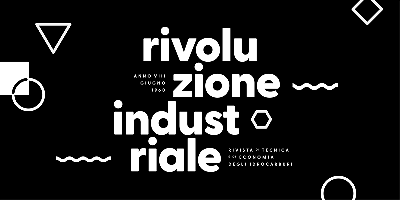
Chorine Font is ideal for clean design projects including swimming pool companies, water treatment facilities, pool maintenance services, aquatic center branding, swimming instructor materials, pool supply stores, water safety campaigns, and crystal-clear marketing initiatives. This pristine typeface works perfectly for pool construction businesses, swimming lesson programs, water purification systems, aquatic therapy centers, and projects that celebrate water clarity and swimming excellence.
What makes Chorine Font exciting is its crisp aquatic character that perfectly captures the essence of crystal-clear water and swimming pool sophistication. The font features clean, flowing letterforms with refreshing clarity that reflects the purity and inviting nature of well-maintained swimming pools. Its transparent design elements embody the spirit of aquatic recreation and water safety, making it perfect for projects that need to convey cleanliness, refreshment, and professional pool management. The carefully crafted fluid lines create an atmosphere of aquatic serenity and swimming confidence.
Chorine Font comes in multiple family variations including crystal, clear, flowing, and aquatic styles. Each weight maintains the distinctive water-inspired character while offering different levels of aquatic intensity and swimming presence. The font family includes pool alternates, water ligatures, and swimming variations that provide designers with comprehensive options for creating truly refreshing and aquatically authentic typographic compositions that celebrate swimming culture.
Whether you're designing aquatic branding, creating pool marketing materials, or developing swimming promotional graphics, Chorine Font Free Download provides the perfect typographic foundation for projects that celebrate water excellence and aquatic lifestyle. This exceptional typeface transforms ordinary text into compelling expressions of aquatic purity and swimming sophistication. Download this refreshing font today and dive into your design projects with the crystal clarity and aquatic elegance that captures the refreshing spirit of swimming pools and water recreation activities.